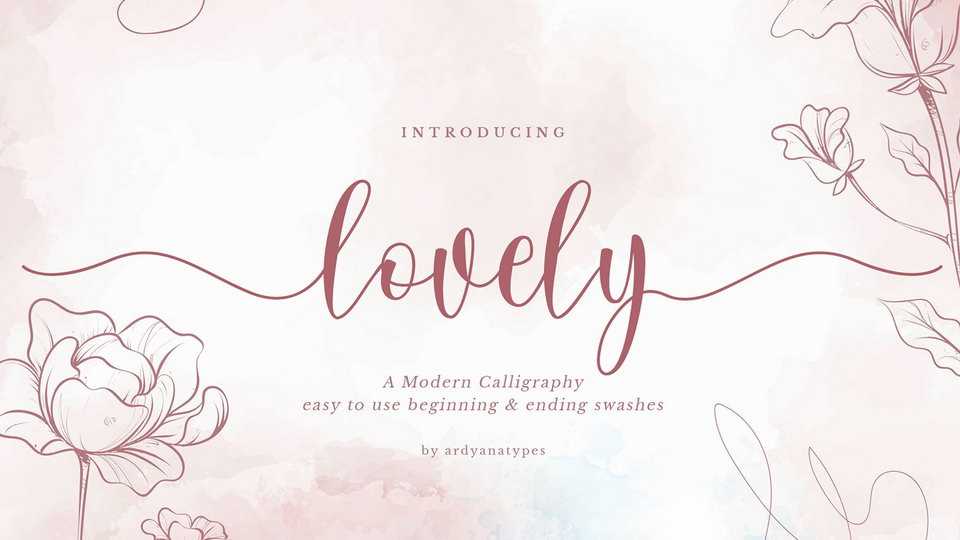
Download Lovely font, a lovely script which created with special touch to giving beautiful and attractive look. Type of modern calligraphy also included in Lovely, it’s very suitable if applied to every design such
Designer: Ardyana Types